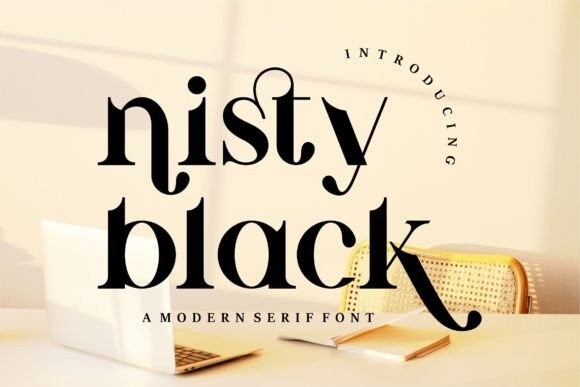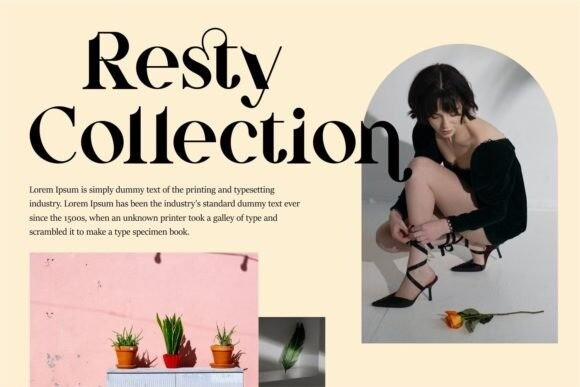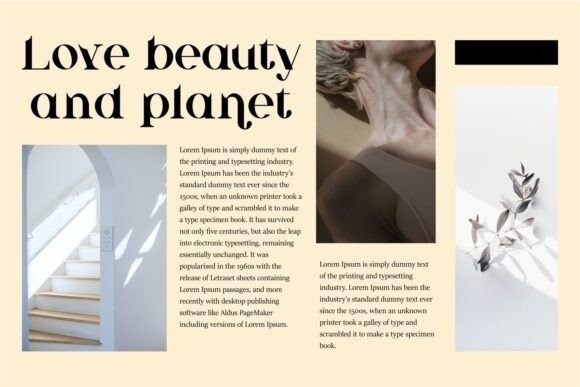
Nisty Black Font
Nisty Black is a modern serif font that exudes sophistication and femininity. Its sleek lines and elegant curves create a graceful and refined look that is perfect for high-end branding, editorial design, and luxury products. The bold weight of the font adds a contemporary edge, making it a versatile choice for a wide range of projects.